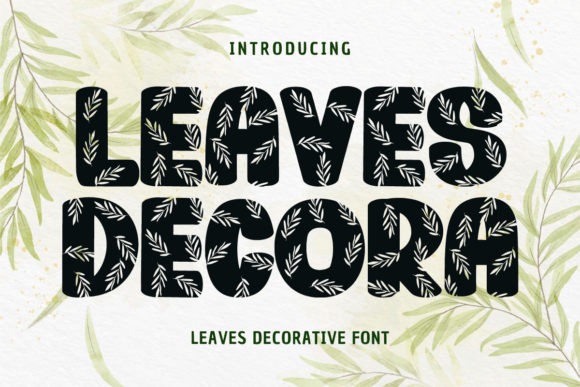
Introducing Leaves Decora Font, a decorative typeface that is guaranteed to bring joy and enchantment to any project! Designed by the talented team at Minimalist Eyes, this bold font is adorned with adorable leaf decorations, making it the perfect choice for all your creative endeavors.
Are you planning a whimsical wedding or creating invitations for a fun-filled Christmas party? Look no further! Leaves Decora Font adds a touch of playfulness and charm to any special occasion. Its unique leaf motifs inject a sense of nature and beauty, making your designs truly standout.
But it doesn't stop there! This versatile font is not only ideal for event-related projects but also for a wide range of applications. Spice up your shirt printing with Leaves Decora Font and let your outfit reflect your vibrant personality. Stick it on mugs and stickers to create eye-catching merchandise that will make people smile.
Looking to create retro-inspired designs or posters? Leaves Decora Font has got you covered! Its bold and captivating letterforms make a striking impression, ensuring your message is heard loud and clear. Whether you're designing logos, illustrations, or any other visual masterpiece, this font will effortlessly elevate your artistic creations.
Let's not forget about the little ones! Leaves Decora Font is one of the best fonts for kids to read. Its playful and easy-to-read letters will captivate young minds and foster a love for reading. From storybooks to educational materials, this font will make learning an enjoyable adventure.
Embrace the magic of Leaves Decora Font and unleash your creativity like never before. Its charming leaf decorations combined with its versatility make it a must-have for designers, artists, and anyone looking to make a lasting impression.